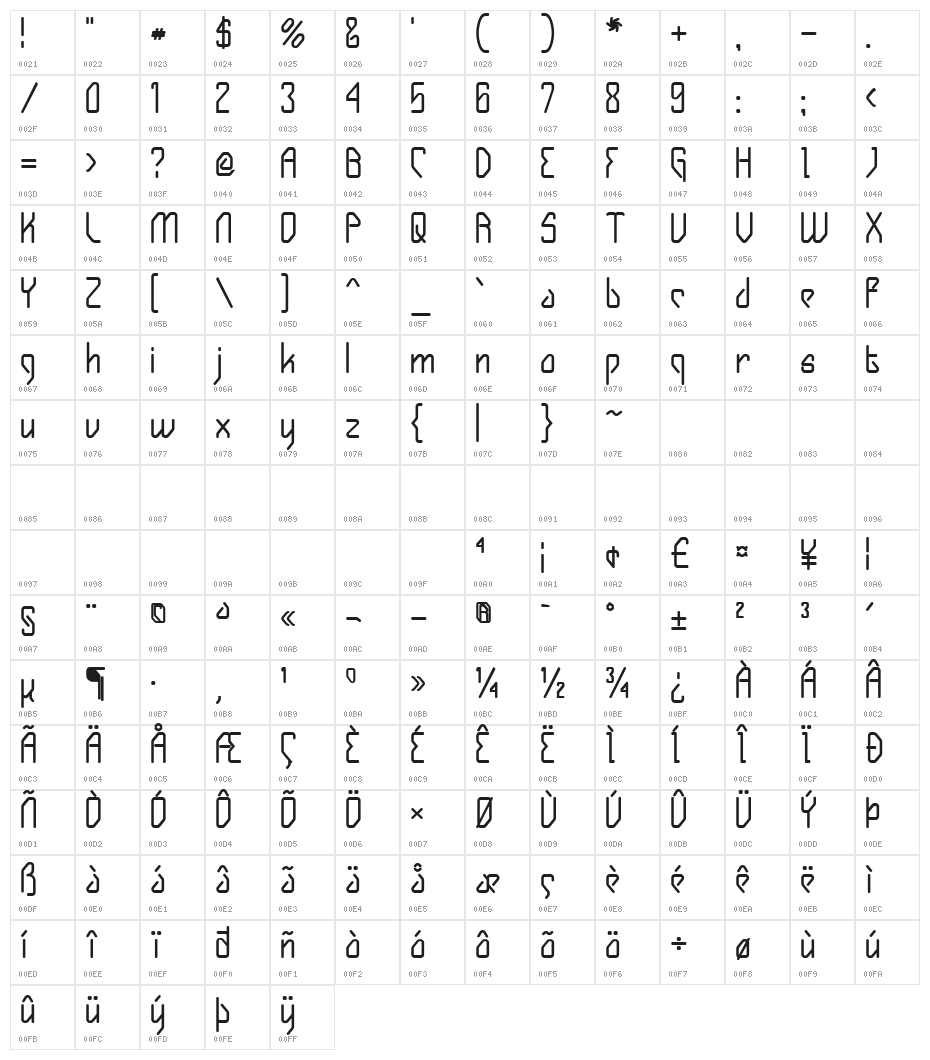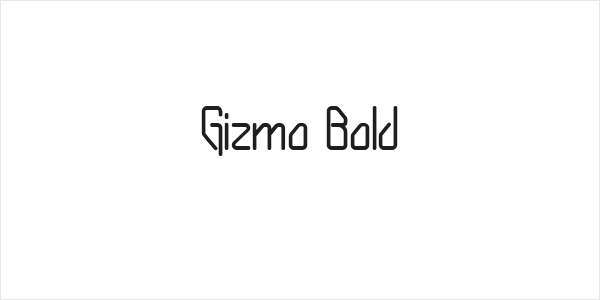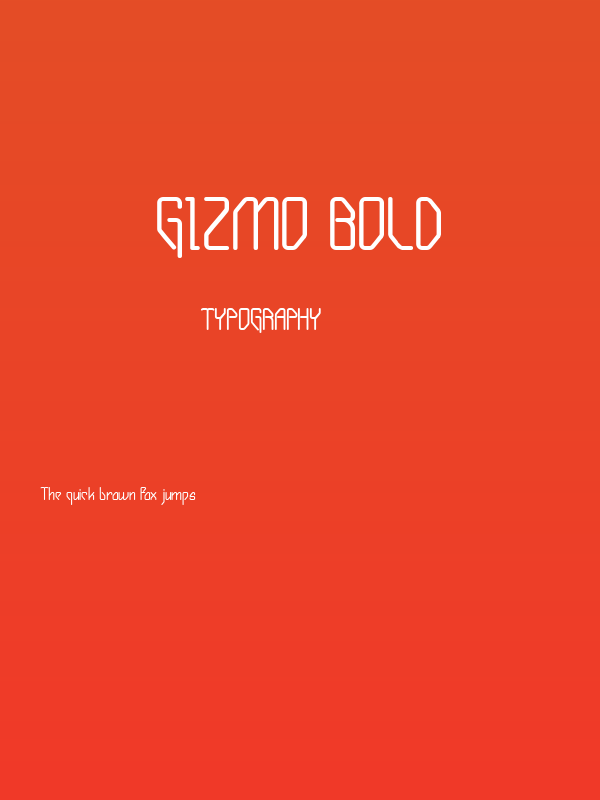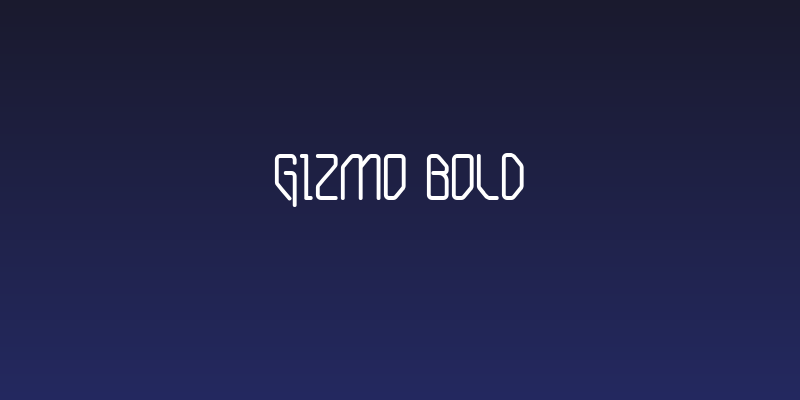
Gizmo Bold Font
Gizmo Bold Description
This font features a unique, futuristic design with geometric shapes and a bold presence. The characters are constructed with straight lines and sharp angles, giving it a modern and tech-inspired look. The uppercase letters are particularly striking, with a uniform height and width that create a cohesive appearance. The lowercase letters maintain the same geometric style, ensuring consistency throughout the typeface. Numbers and special characters are designed to match the overall aesthetic, making this font versatile for various applications. The clean lines and distinct shapes make it highly legible, even at smaller sizes.
| Proposed Projects | Ideal for technology branding, sci-fi posters, video game interfaces, and modern advertising. |